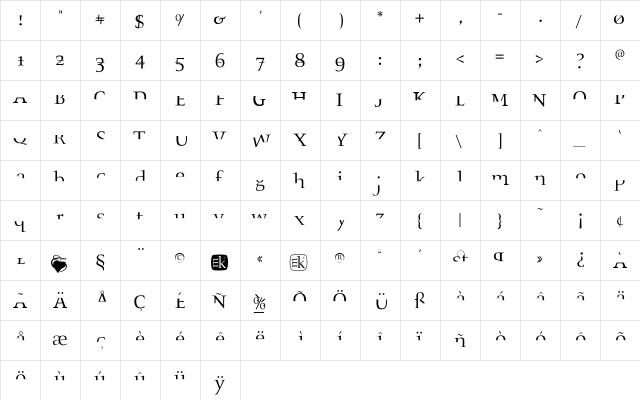
Fragmenta Regular
Design Context for Fragmenta Typeface
Fragmenta is a composed and adaptable typeface that performs quietly and consistently across a wide range of design contexts.